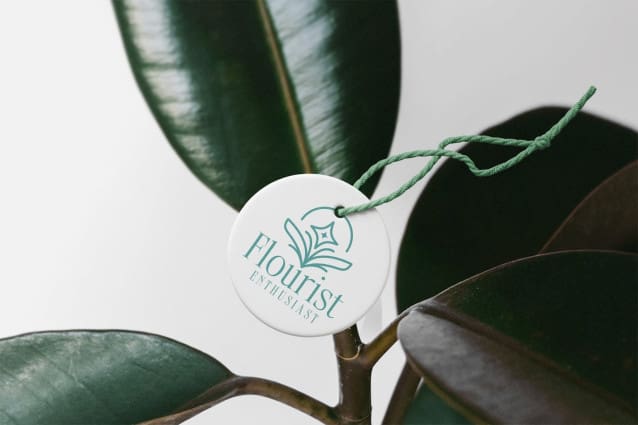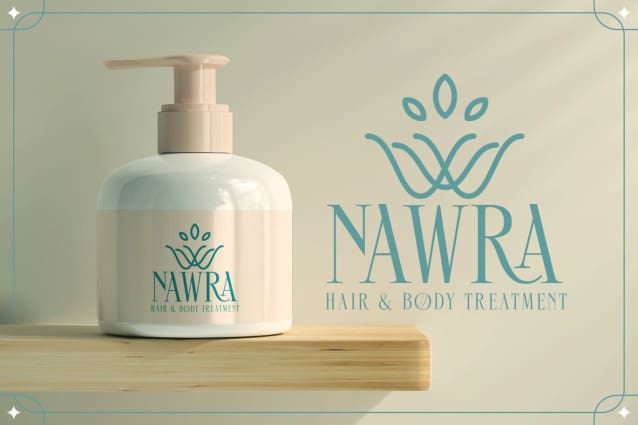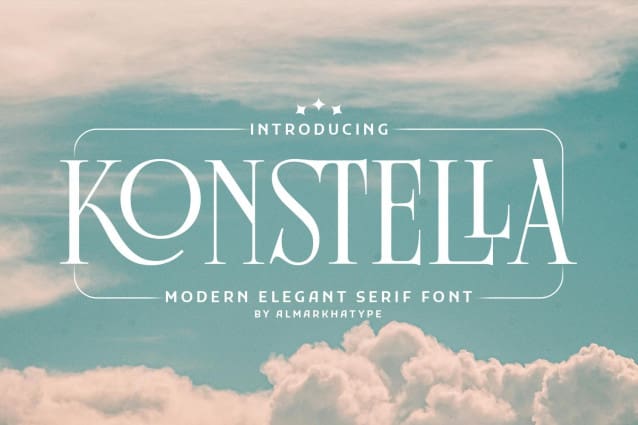
Konstella Font
Konstella Font, a modern and condensed vintage serif typeface meticulously crafted with exquisite ligatures, special alternate glyphs, and extensive multilingual support. Versatile and refined, this font scales well at both large and small sizes, meeting a wide range of design needs.
Perfect for editorial projects, logo design, apparel branding, product packaging, magazine headers, and more, Konstella brings a touch of sophistication to every application. Whether you’re creating a timeless logo or enhancing a background image with elegant Text Overlays, this font effortlessly elevates your projects with its blend of classic charm and contemporary allure.